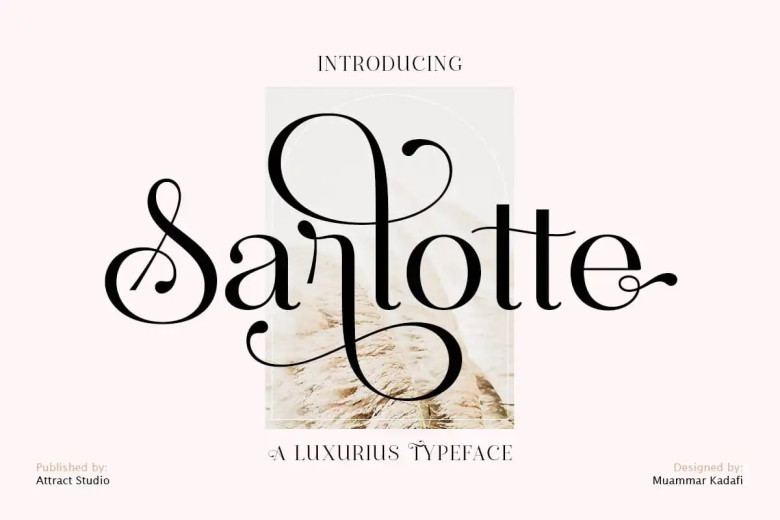
Sarlotte Font
Sarlotte offers a stylish display font ideal for use in various projects like blog posts, branding, advertising, greeting cards and planners. Enjoy its results when adding it to your designs!
Sarlotte Serif Font